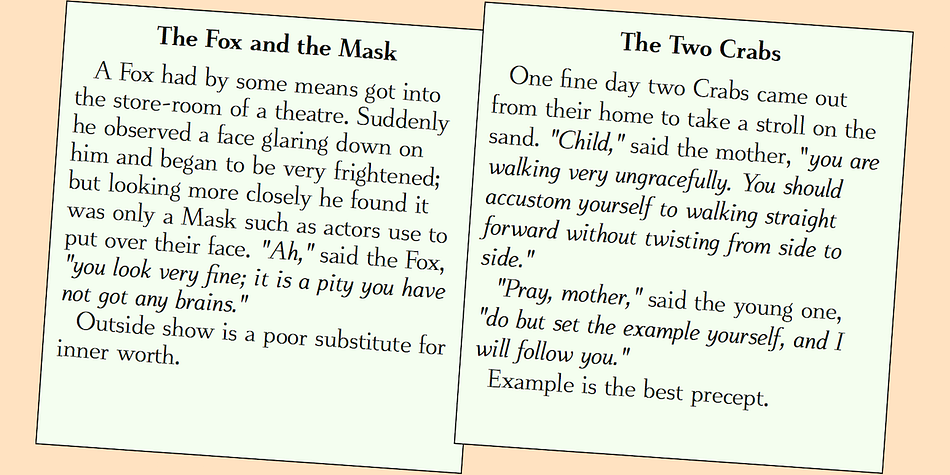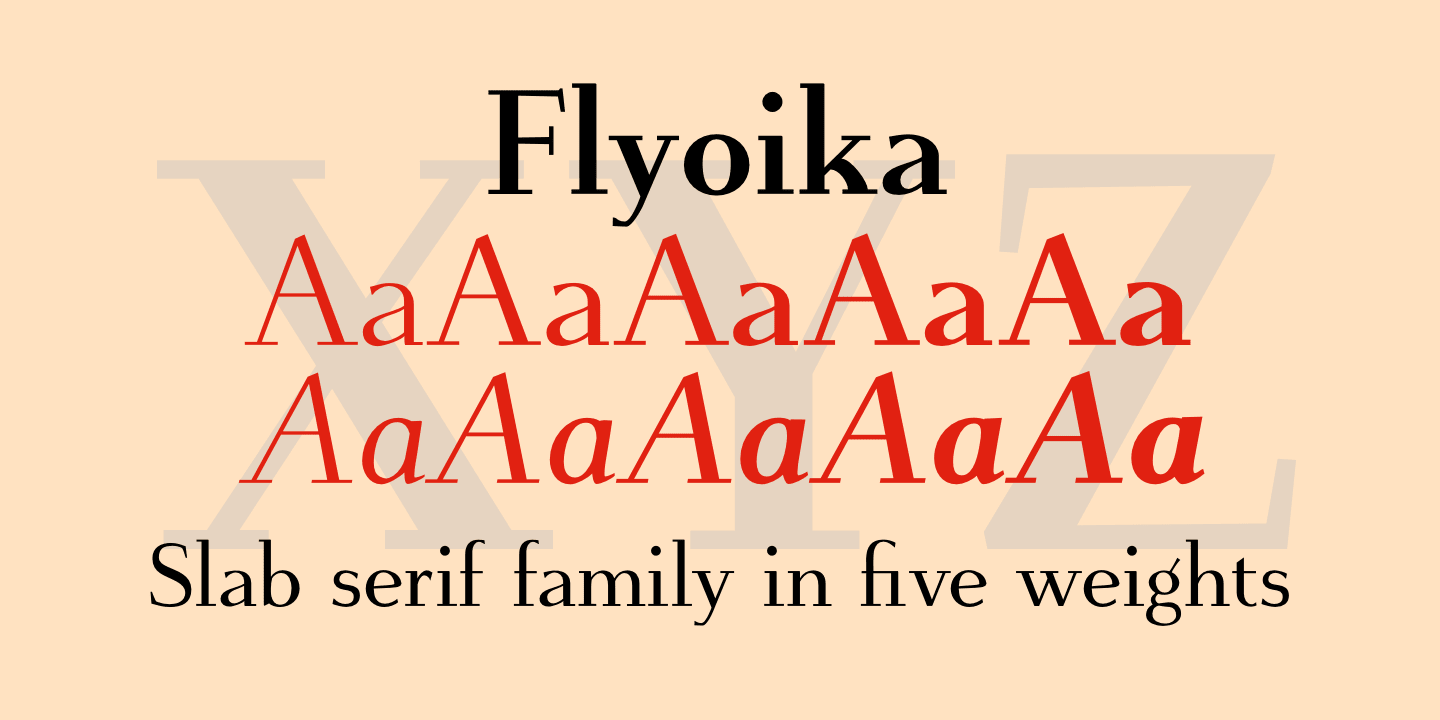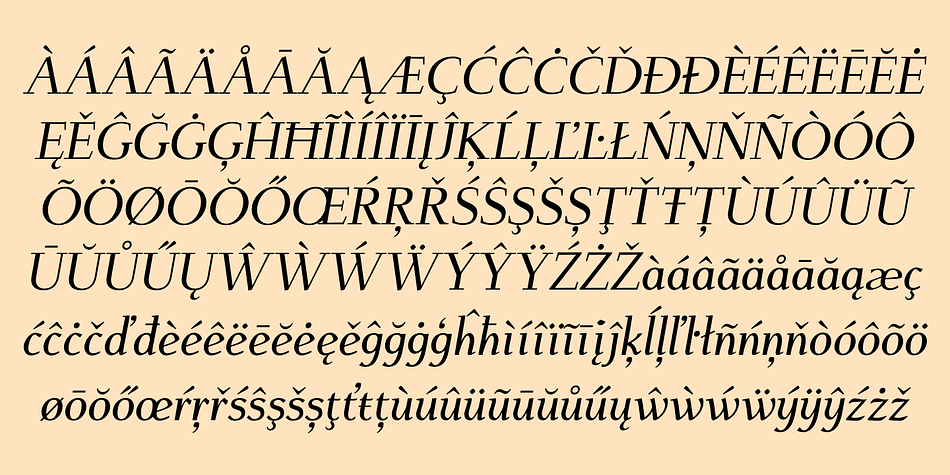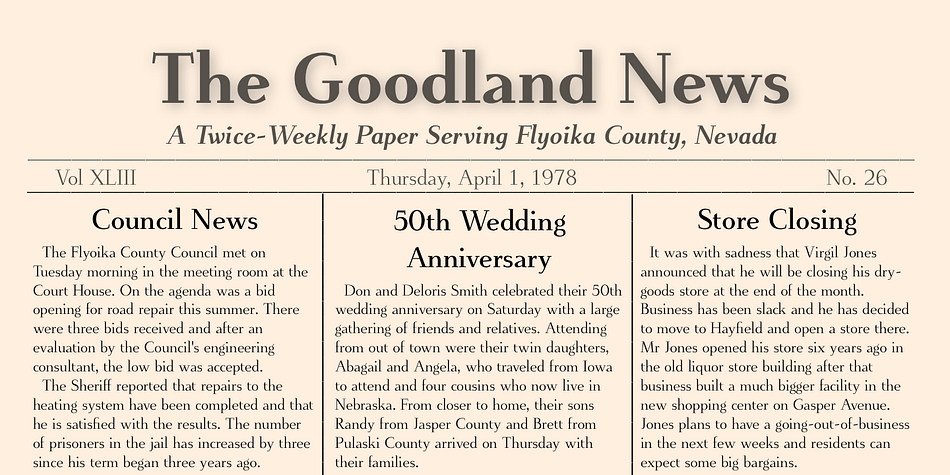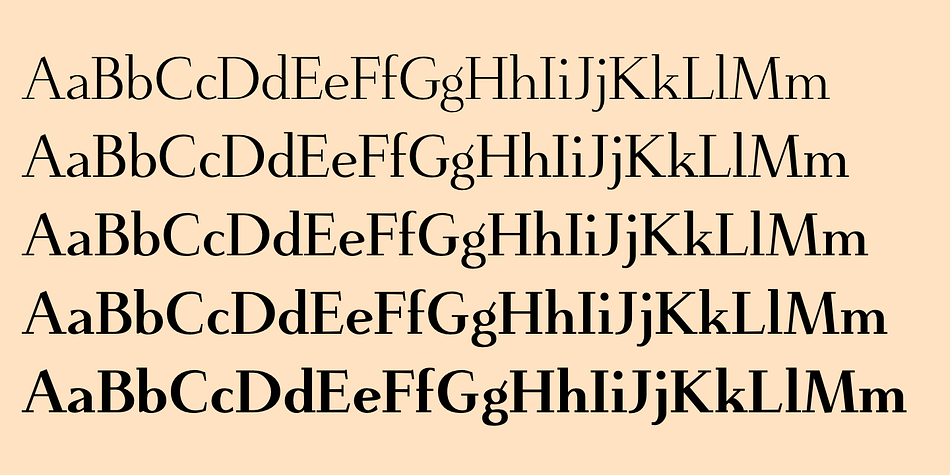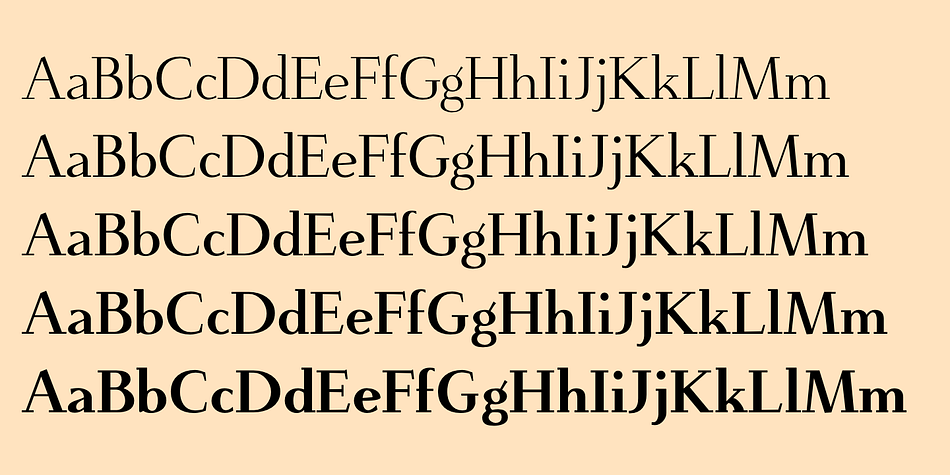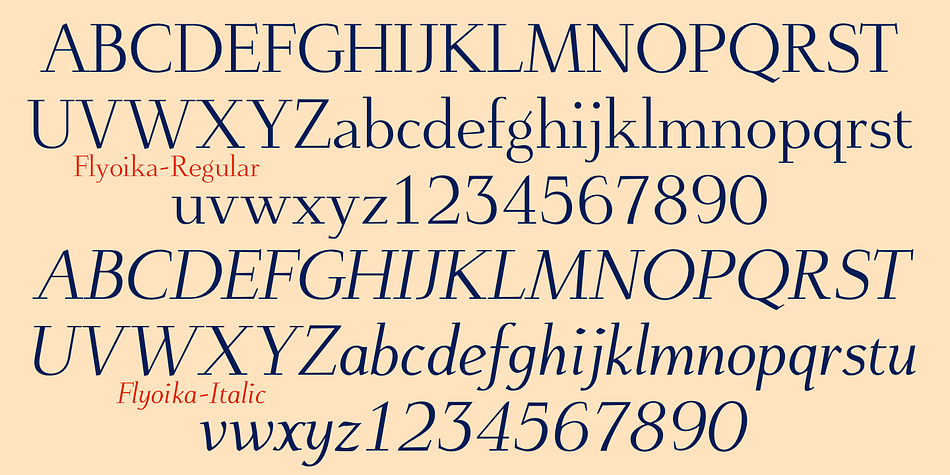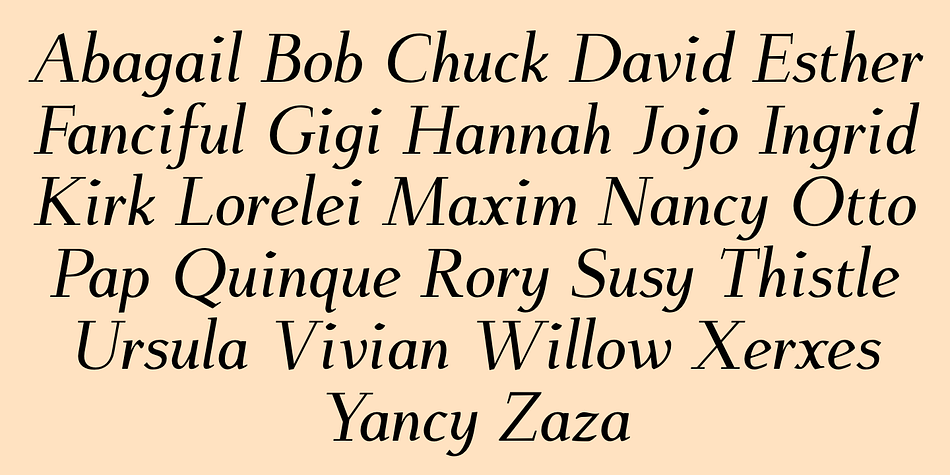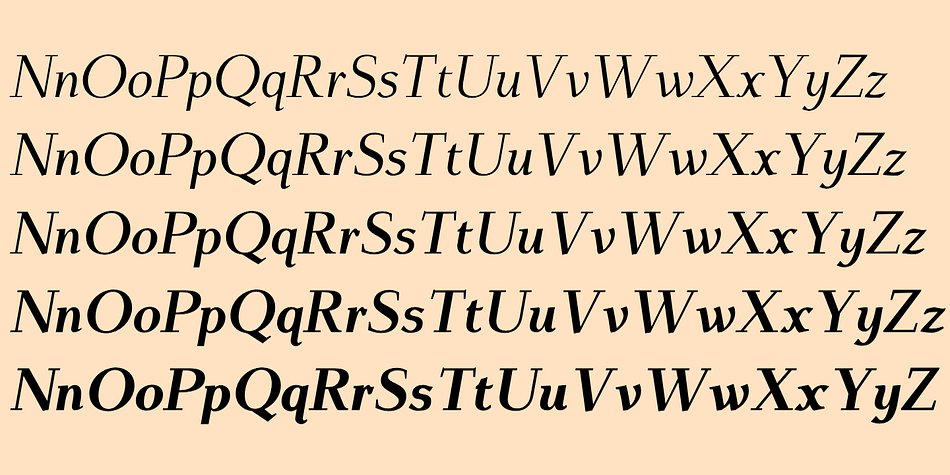
Designed by Robert Schenk, Flyoika is a slab serif font family. This typeface has ten styles and was published by Ingrimayne Type.
Flyoika is a slab serif family with a fairly low x-height, long ascenders, and considerable contrast. The family has five weights, each with an italics and it can be used for either display or text.
Flyoika was not designed to meet a particular need but rather out of curiosity. Years ago I had designed two slab serif families, FlyHigh and Euroika, that I recently noticed had a lot of similarities and I wondered what a blend of the two would look like. Several corresponding characters in the two families are considerably different and in cleaning up the results, I usually opted for simplicity. The name “Flyoika” reflects these origins.